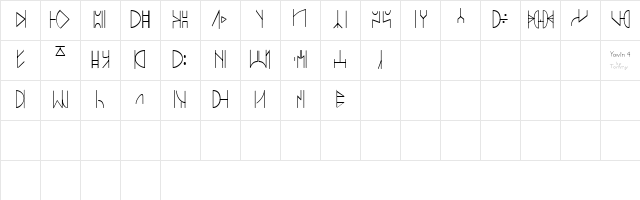
Complete SWyavin4 Normal glyph index. Displaying only characters natively supported by SWyavin4 Normal font.
SWyavin4 is a composed and adaptable typeface that performs quietly and consistently across a wide range of design contexts.